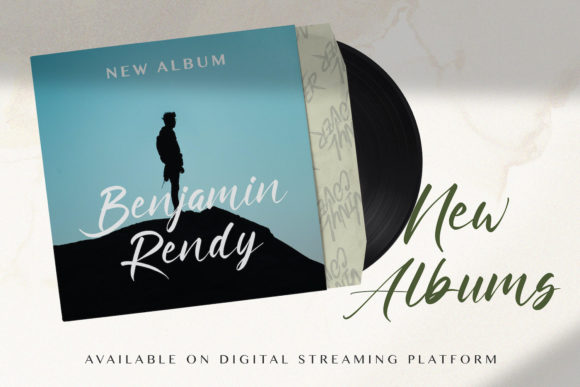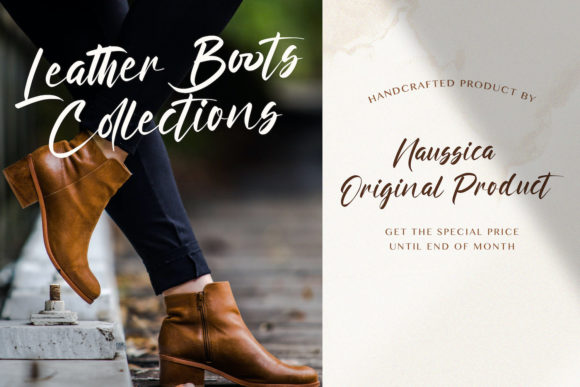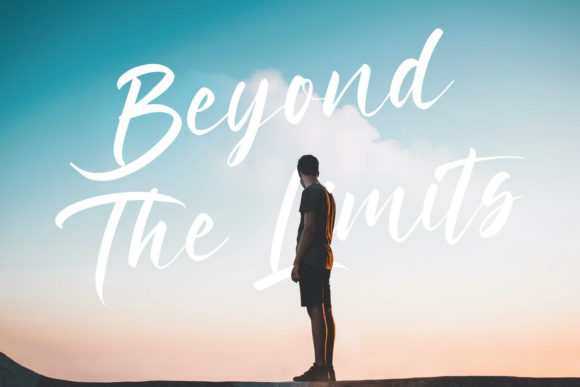
Introduction to Ratri Volutten Font
As designers, we’ve all been there – staring at a blank canvas, trying to conjure up the perfect idea for a creative project. The cursor blinks impatiently, and our minds go blank. But what if we had the perfect tool to break the creative block? Enter the Ratri Volutten Font, a stunning, high-quality, and naturally charming handwritten font that can elevate any design to new heights.
This exquisite font boasts beautifully rounded characters and an undeniable charm that’s sure to capture the attention of anyone who lays eyes on it. Whether you’re working on a design project, creating a social media graphic, or crafting a brand identity, the Ratri Volutten Font is an invaluable resource that can add a touch of sophistication and elegance to your work. And the best part? It’s available for a free download, making it an accessible design resource for creatives of all levels.
Key Features of Ratri Volutten Font
- High-quality design for creative projects: The Ratri Volutten Font is ideal for designers and artists looking to add a unique touch to their work.
- Unique characteristics: The Ratri Volutten Font features a unique blend of modern and vintage elements, making it perfect for designers looking to add a touch of personality to their work.
- Design resource: This font is a valuable addition to any designer’s toolkit, providing a versatile and high-quality design resource for creative projects.
Honest Review: Ratri Volutten Font
As a designer, I’m always on the lookout for high-quality fonts to elevate my creative projects. The Ratri Volutten Font caught my eye with its unique, hand-drawn style that’s perfect for adding a personal touch to designs. The font is available for free download, making it a great resource for designers of all levels.
- ✨ Unique, hand-drawn style that’s perfect for creative projects
- ✨ High-quality design that looks great on transparent backgrounds
- ⚠️ Limited character set, which may be a issue for longer texts
- ⚠️ Not as versatile as some other fonts, may not be suitable for all design styles
Overall, I’m impressed with the Ratri Volutten Font’s unique style and high-quality design. While it may have some limitations, it’s a great resource for designers looking to add a personal touch to their creative projects.
Ratri Volutten Font is a free download that can be used as a design resource for various creative projects. It’s perfect for creating eye-catching graphics, logos, and typography. With its high-quality design, you can take your project to the next level.
Ratri Volutten Font is commonly used for creating logos, graphics, and typography for various design projects. Its high-quality design makes it perfect for creative projects that require a unique and eye-catching look.